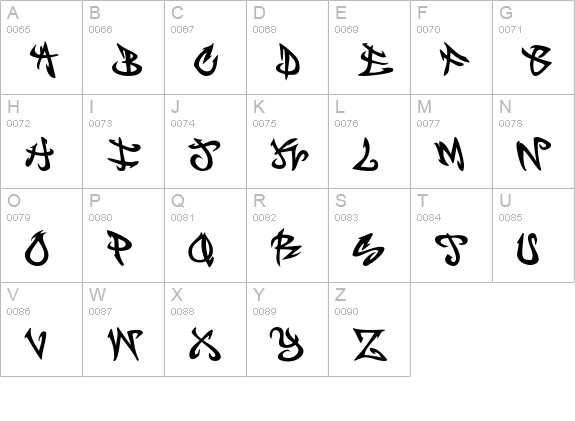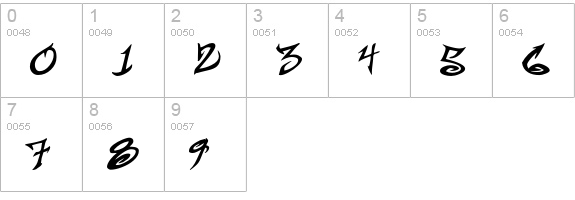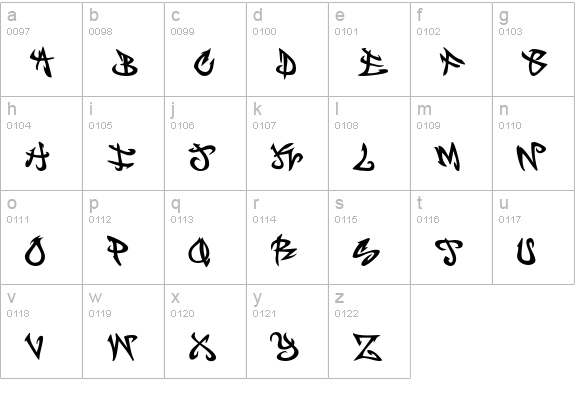
BBOYSTRUT Font Details
BBOYSTRUT font is a dynamic and energetic typeface perfect for adding flair and style to your designs. Inspired by the urban street culture and hip-hop scene, this font exudes confidence and attitude. With its bold lettering and sharp edges, BBOYSTRUT commands attention and makes a bold statement. This versatile font is well-suited for a variety of design projects, from posters and flyers to album covers and social media graphics. Whether you're looking to convey a sense of urban cool or inject some personality into your work, BBOYSTRUT has you covered. Best of all, BBOYSTRUT is available for free download at FontsMarket.com. So, why wait? Add a touch of urban flair to your designs with BBOYSTRUT font today!